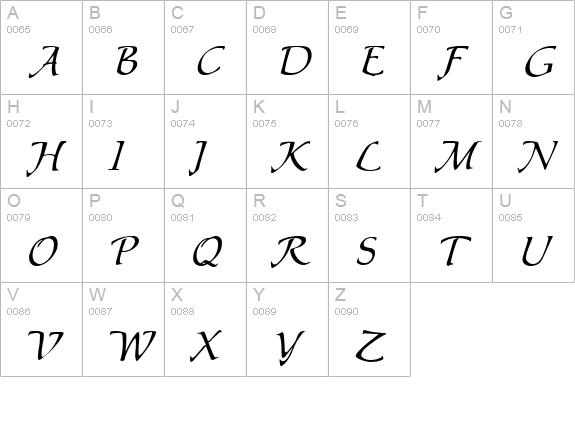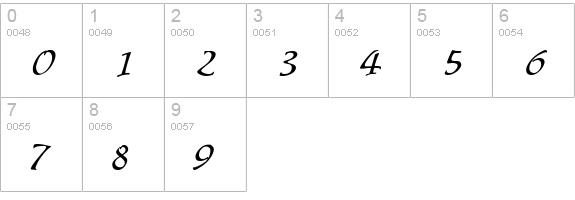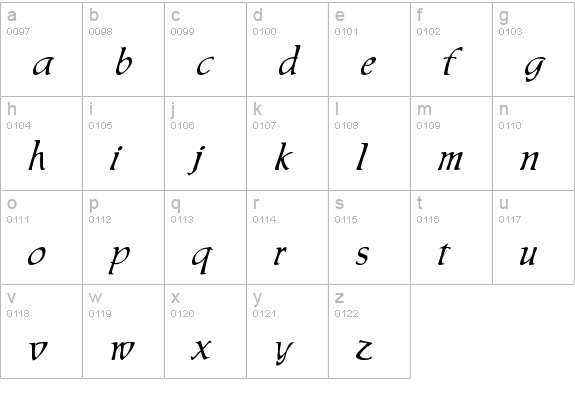
Ingrid-Regular Font Details
Ingrid-Regular is the standard, neutral variant in the Ingrid typeface family \xE2\x80\x94 well suited to general body text, paragraphs, and standard typographic work.